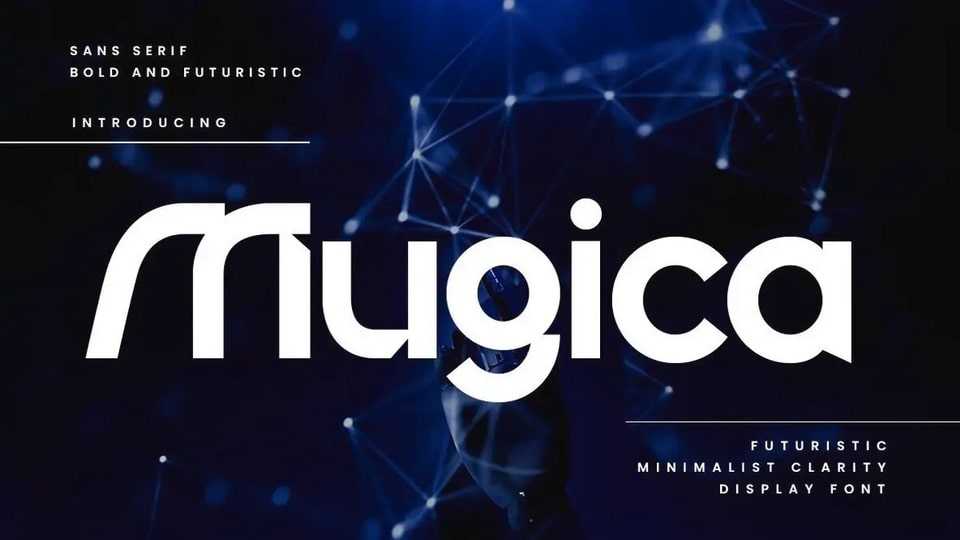
Download Mugica font, a bold and futuristic sans serif typefce designed to bring clarity and innovation into your designs. With its geometric balance and sleek personality, Mugica captures the essence of modern typography